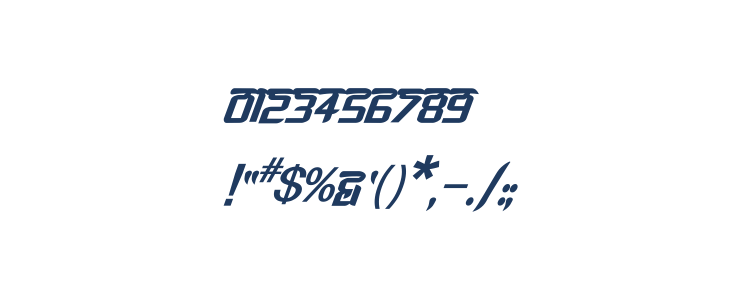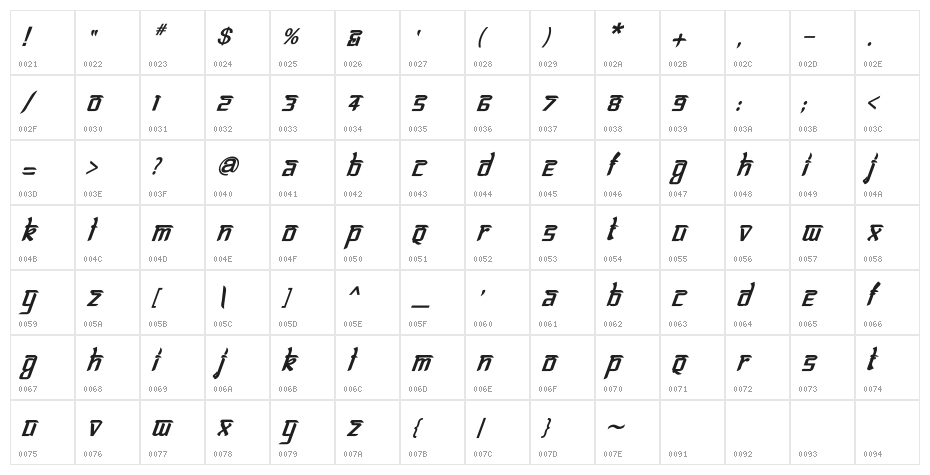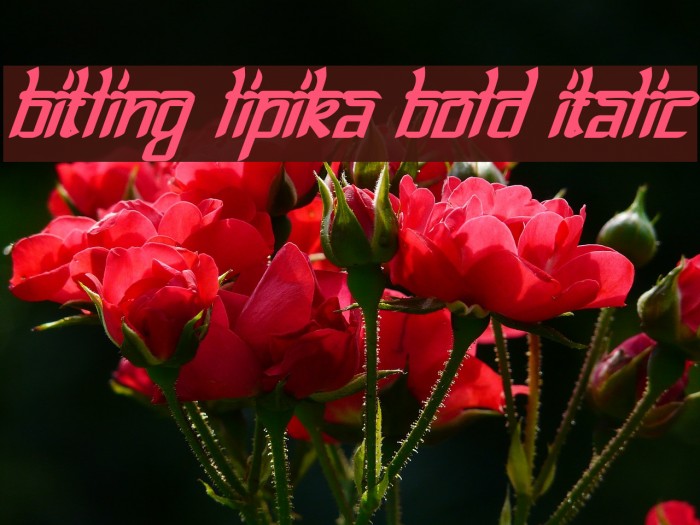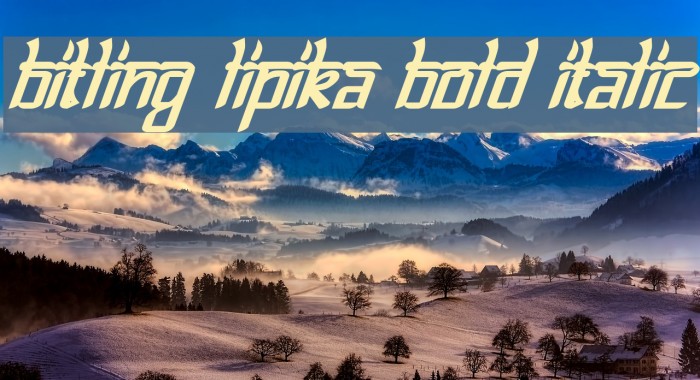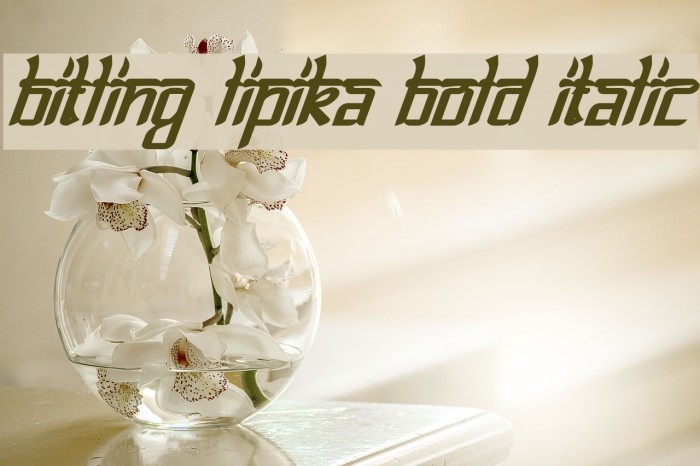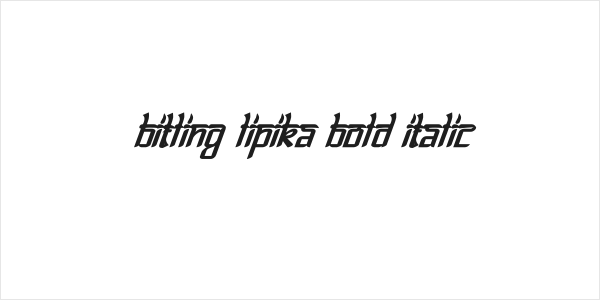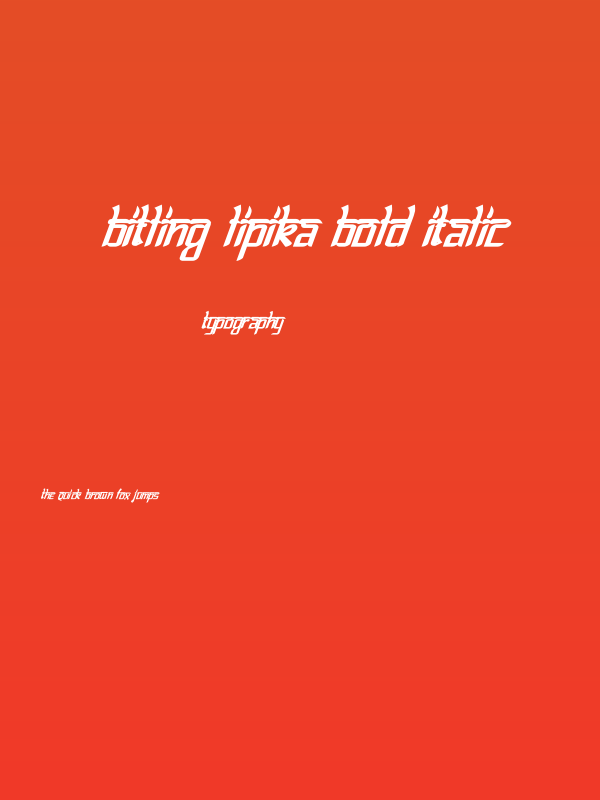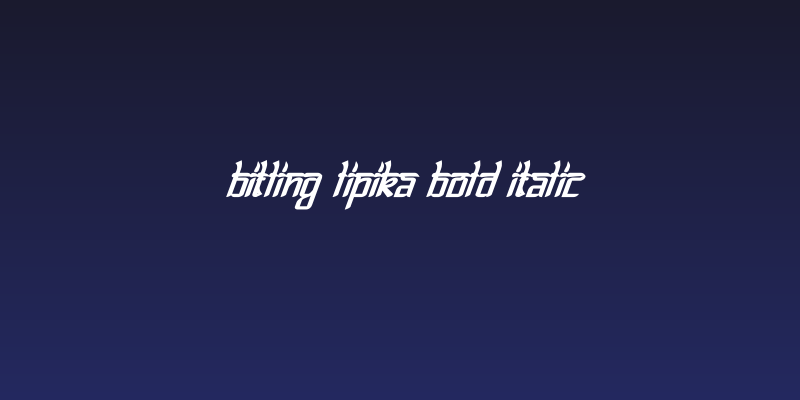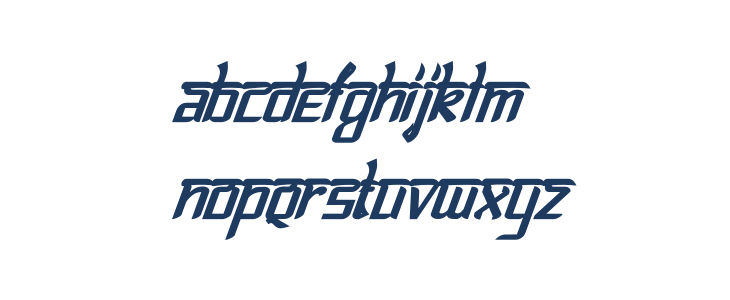
Bitling lipika Bold Italic Font
Bitling lipika Bold Italic Description
This font features a bold and italicized style with a distinct, angular design. The characters are sharply defined with a futuristic and dynamic appearance, making it stand out. The uppercase and lowercase letters maintain a consistent slant, enhancing the italic effect. Numbers and special characters follow the same stylistic cues, ensuring uniformity across all glyphs. The font's unique style is characterized by its strong geometric shapes and sharp edges, which give it a modern and edgy look. The overall presentation is both striking and legible, suitable for various creative applications.
| Proposed Projects | Ideal for sci-fi themed projects, video game titles, modern branding, and dynamic posters. |